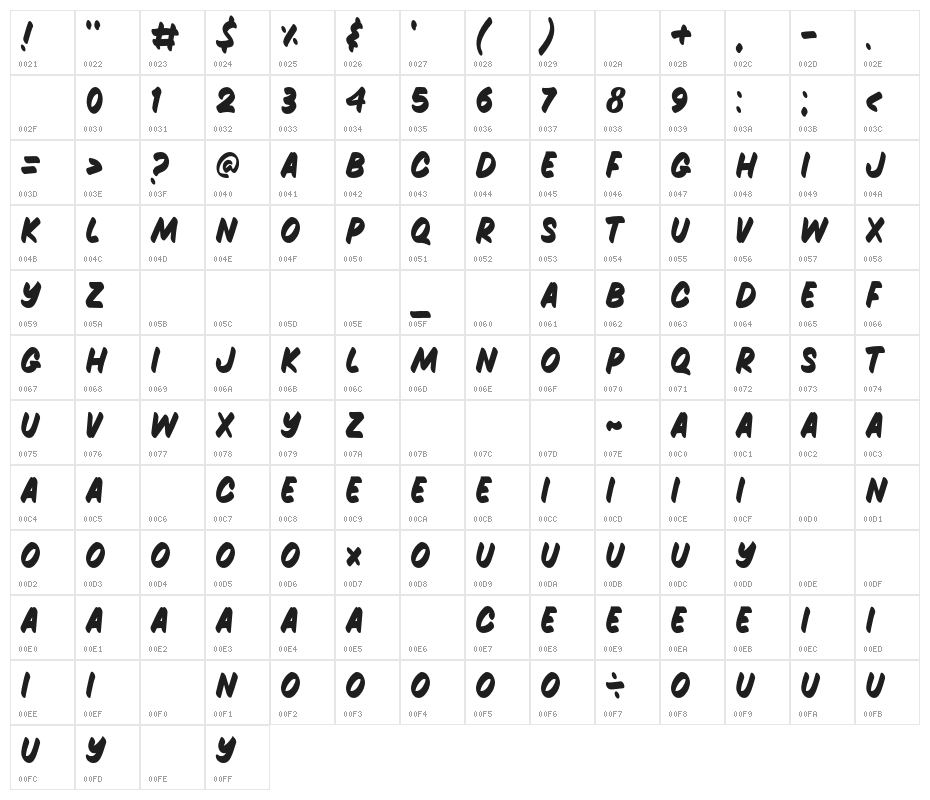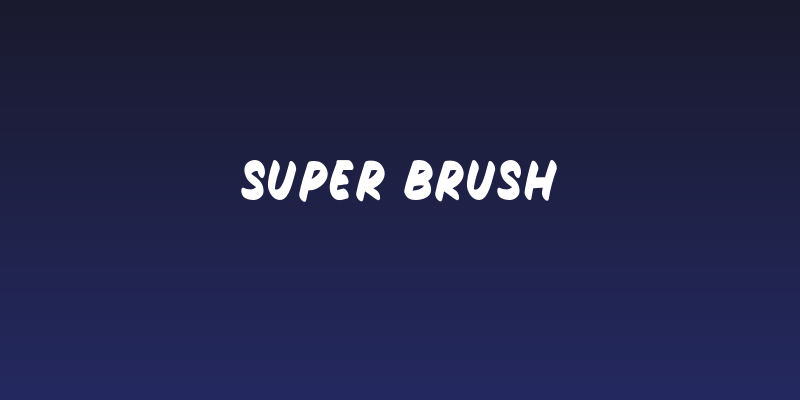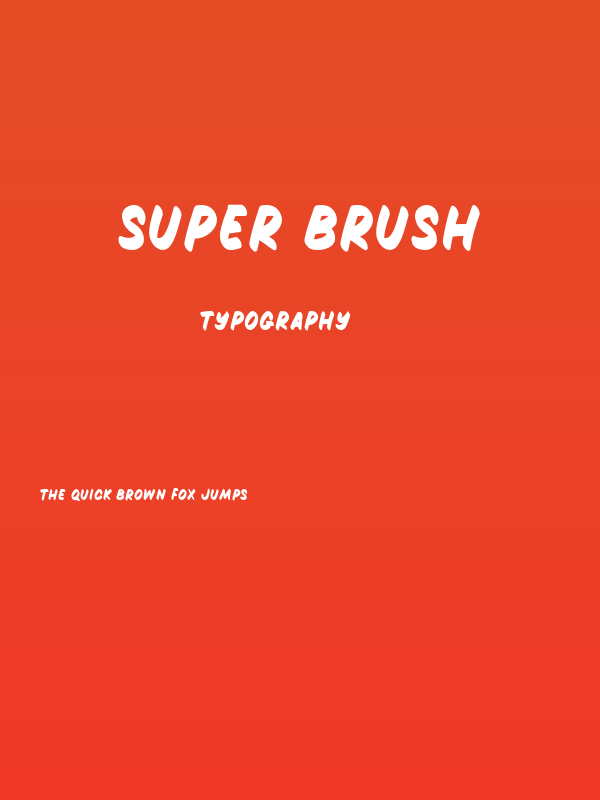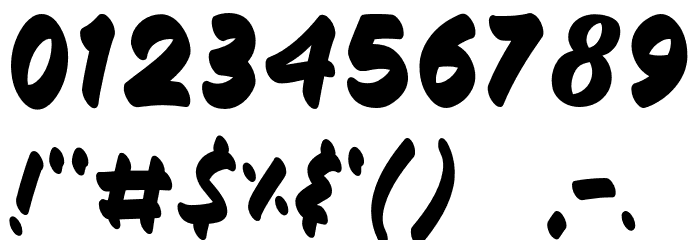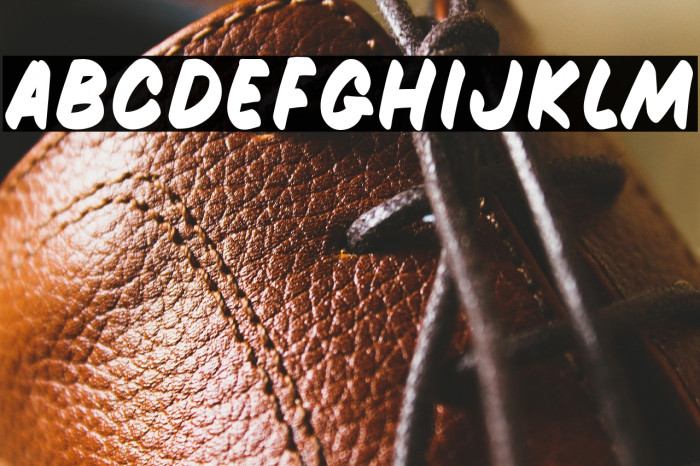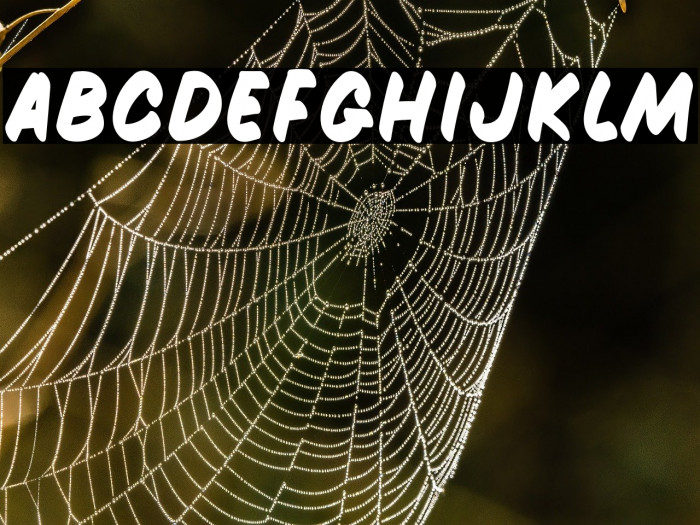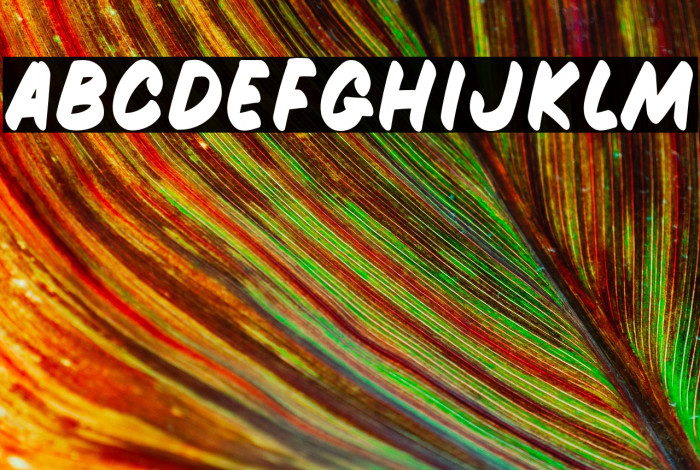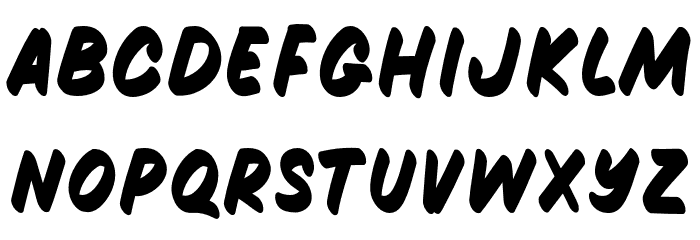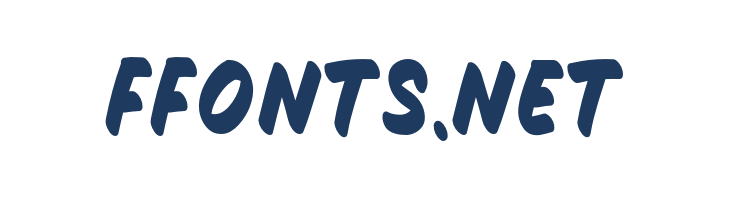
Super Brush Font
Super Brush Description
This font features a bold, brush-like style that exudes energy and dynamism. The characters are thick and rounded, giving them a playful and informal appearance. The strokes are consistent in width, creating a cohesive look across all letters and numbers. The font's design is reminiscent of hand-painted signage, making it ideal for projects that require a personal touch. The uppercase and lowercase letters maintain a uniform height, contributing to its balanced aesthetic. The numerals and special characters are equally bold, ensuring they stand out in any context.